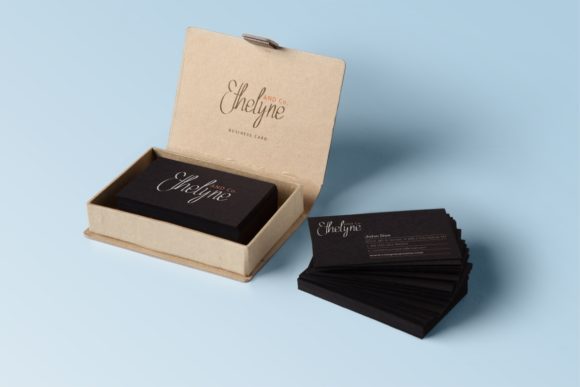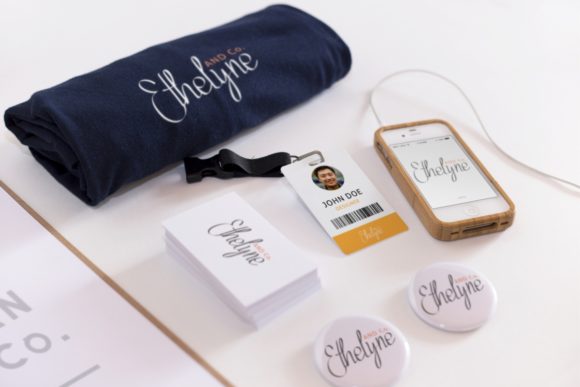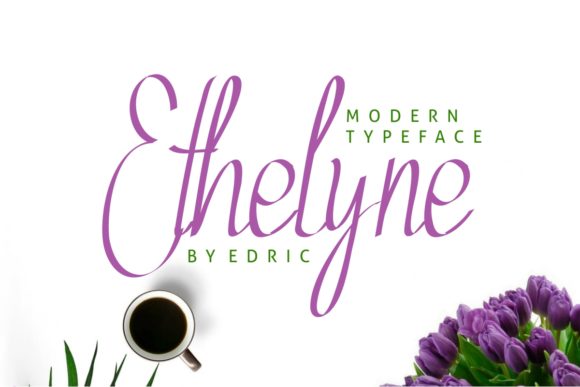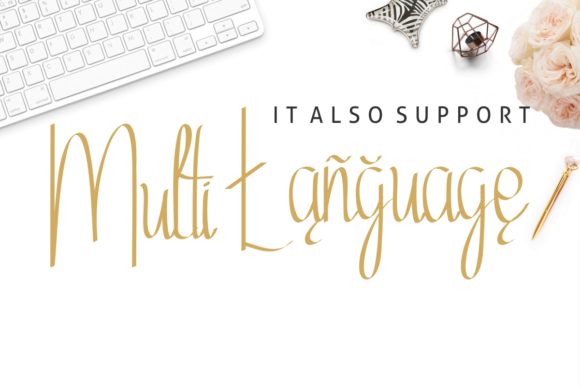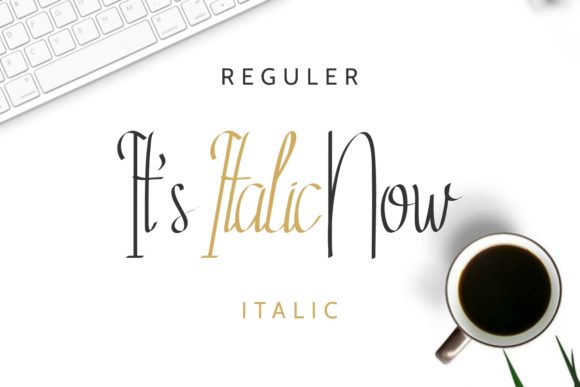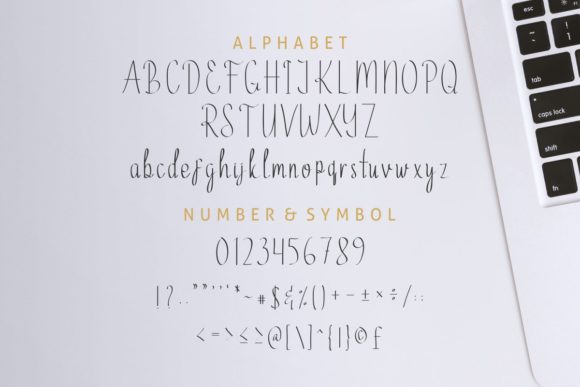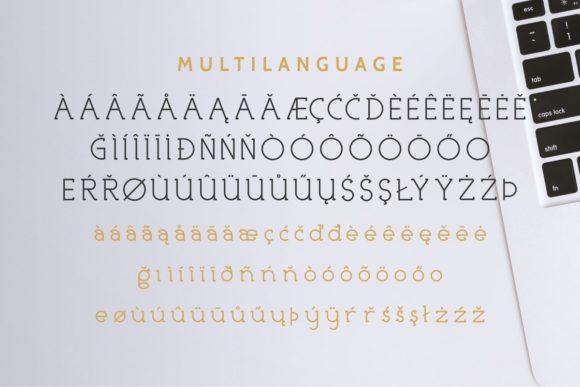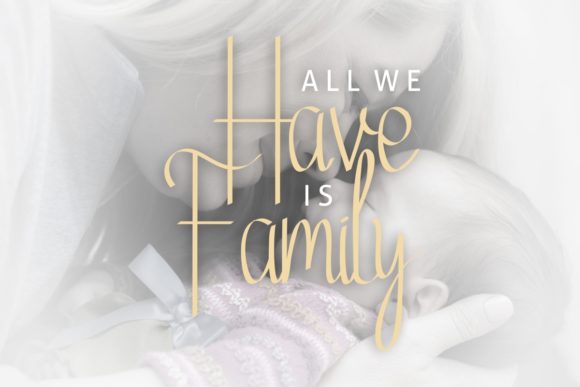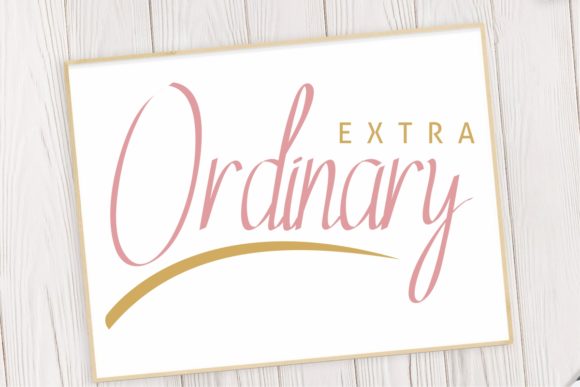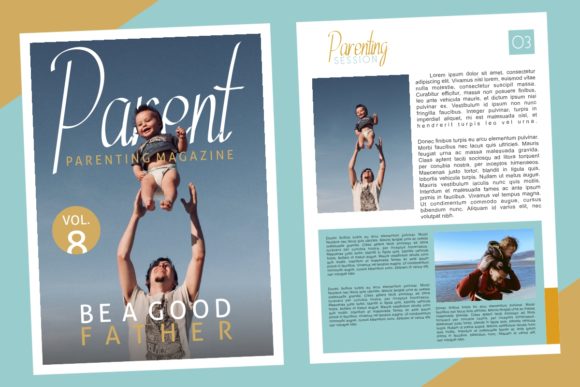
Ethelyne Font
About Ethelyne Font
Ethelyne is a sweet and organic handwritten font with bold letters. It features multi-language support and an equally stunning italic version!